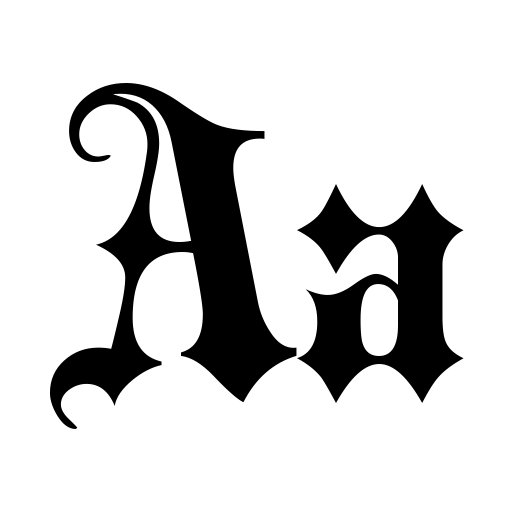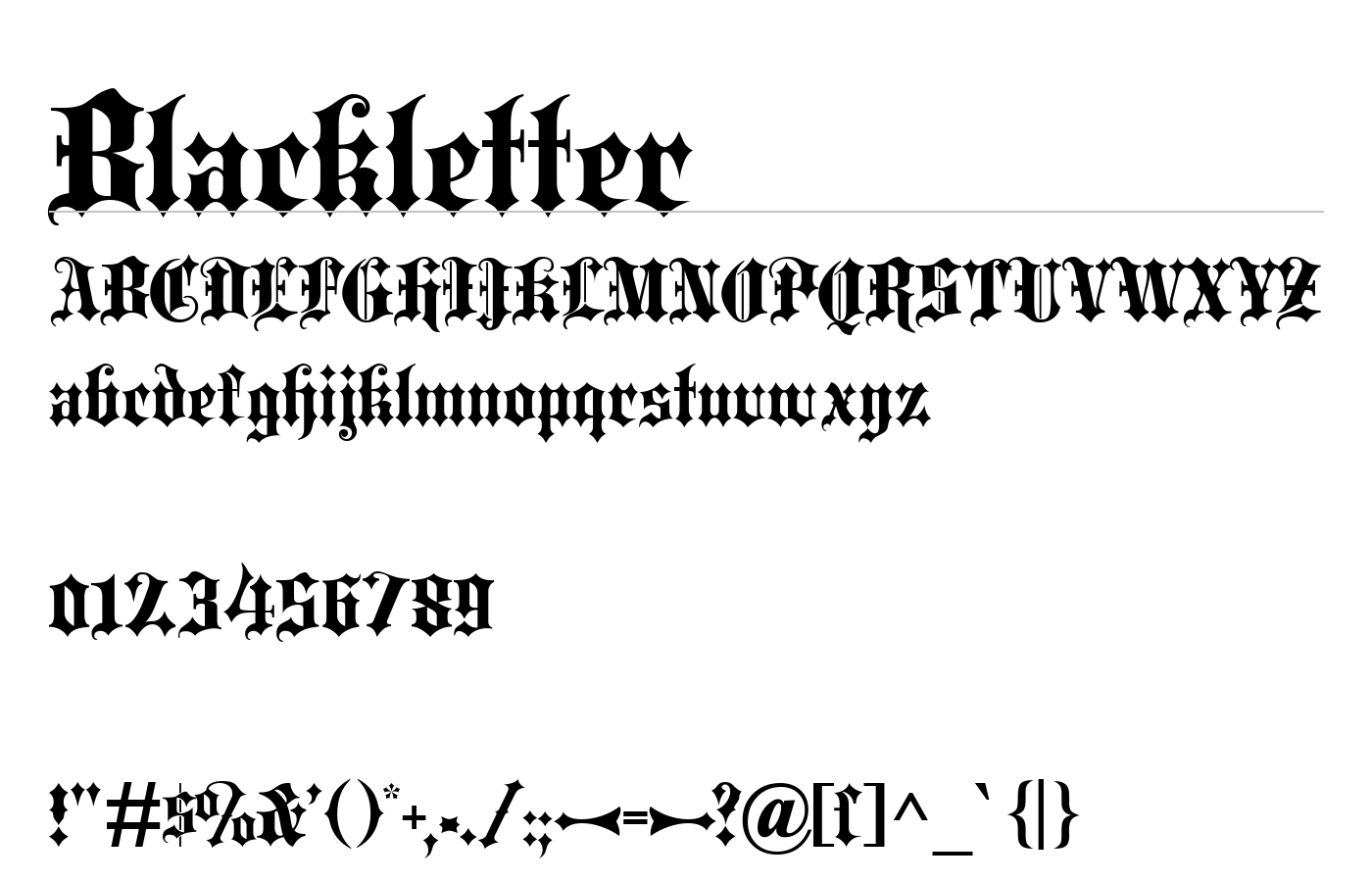
This Blackletter font is a bold, highly decorative serif style that draws inspiration from traditional Gothic calligraphy, featuring sharp, pointed edges and dense, intricate letterforms. Its strong contrast and compact, angular shapes create a historic, dramatic feel, making it ideal for vintage-themed branding, logos, and headlines where a striking, old-world character is desired. This font works best in large sizes for impactful display rather than body text, lending an air of tradition and formality with a unique artistic flair.
Blackletter Font
About Blackletter Font